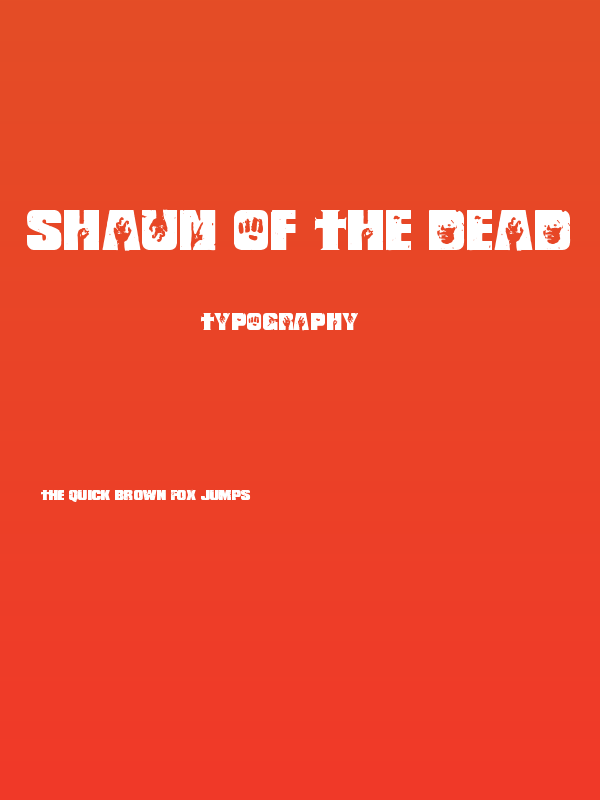
Shaun of the Dead Font
Shaun of the Dead Description
This font features a bold, distressed style with a horror theme, incorporating elements like zombie hands and rough textures into the letterforms. The uppercase letters are particularly striking, with some characters featuring graphic elements that suggest a sense of decay or destruction. The font's rugged appearance makes it ideal for projects that require a dramatic and eerie aesthetic. Its unique design elements make it stand out, capturing attention with its bold and thematic presentation.
| Proposed Projects | Ideal for horror movie posters, Halloween event flyers, themed merchandise, and video game titles. |